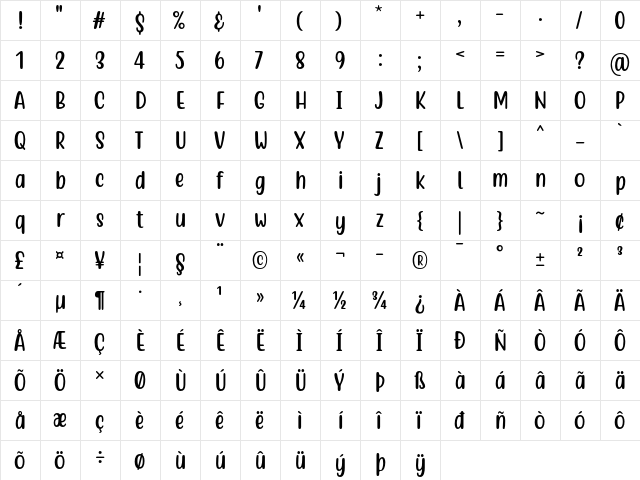
Quotable Regular
| Foundry | 7NTypes |
| Designer | Situjuh Nazara |
Design Context for Quotable Typeface
Quotable offers clean, dependable letterforms without strong stylistic allegiance, making it a practical choice for designers who need flexibility.